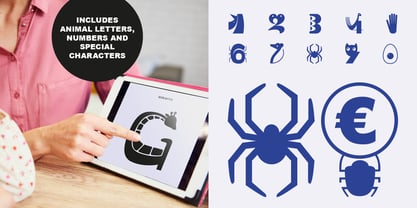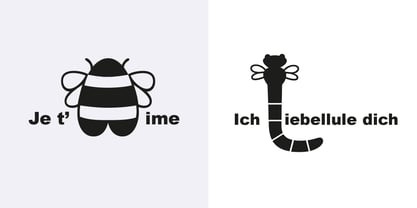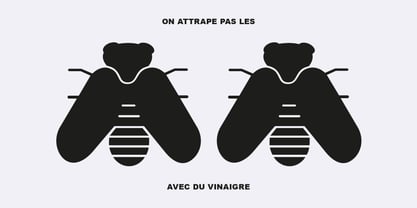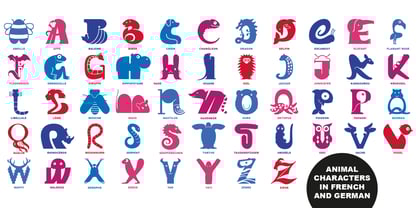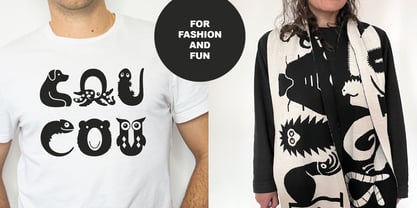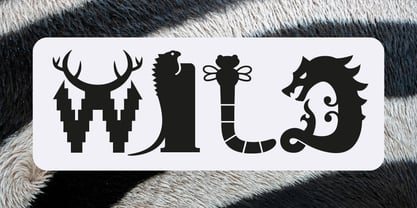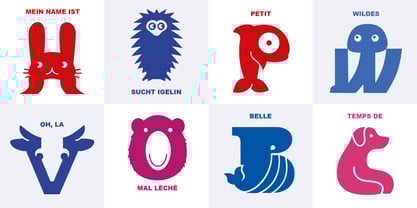
Animauxtiere
Die Schriftfamilie Animauxtiere wurde von Markus Strümpel entworfen und von Designpiraten veröffentlicht. Animauxtiere enthält 1 Stile. Mehr über diese Familie
Alphabet with french and german animal names. Every letter is shaped like an animal, helping children connect language with creativity. Each letter represents an animal both in french and in german language, making it a perfect tool for multilingual learning at schools, kindergarten or children’s libraries. A funny way to learn letters and languages. It may be used for posters, signage, give-aways etc.